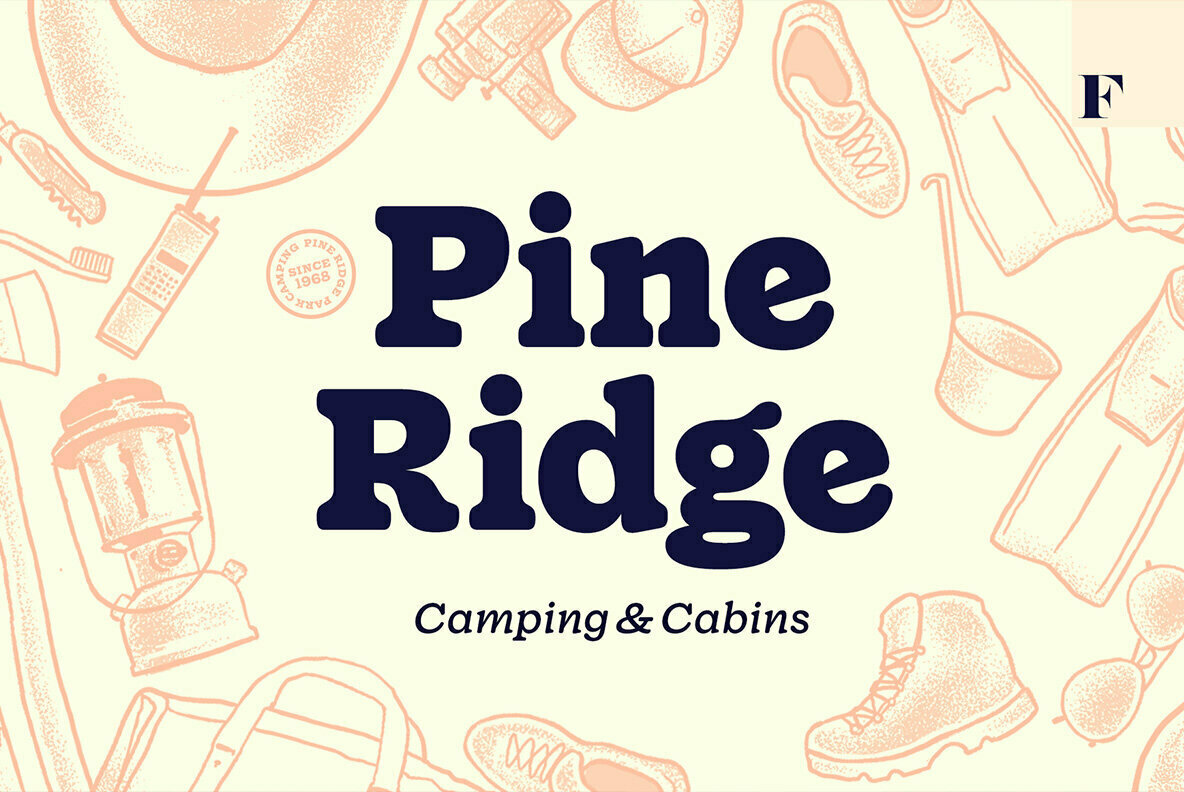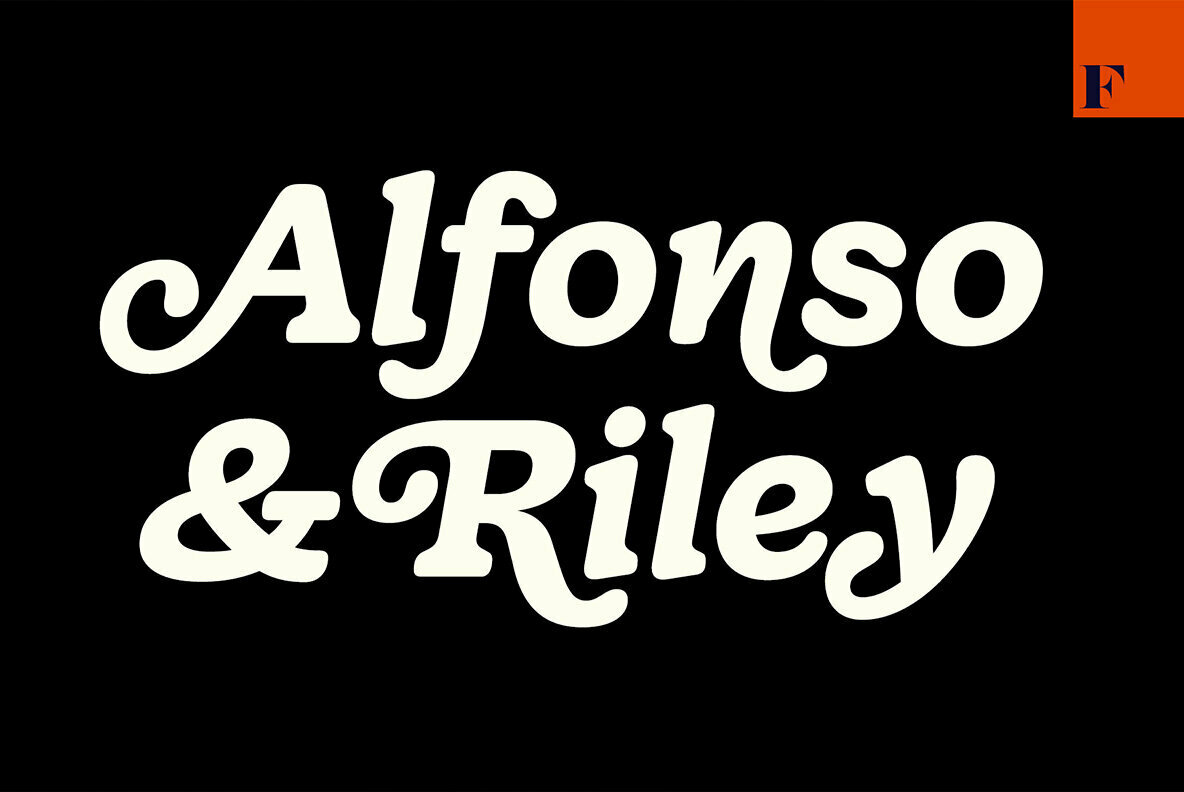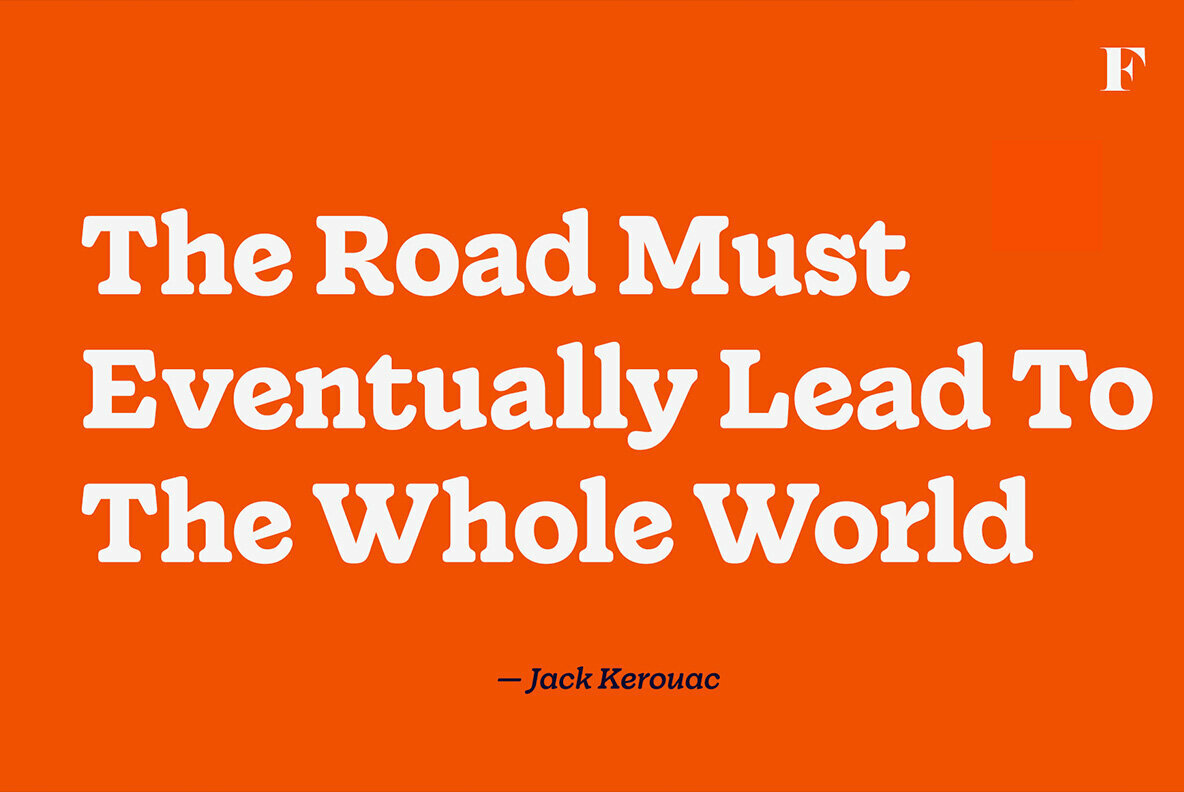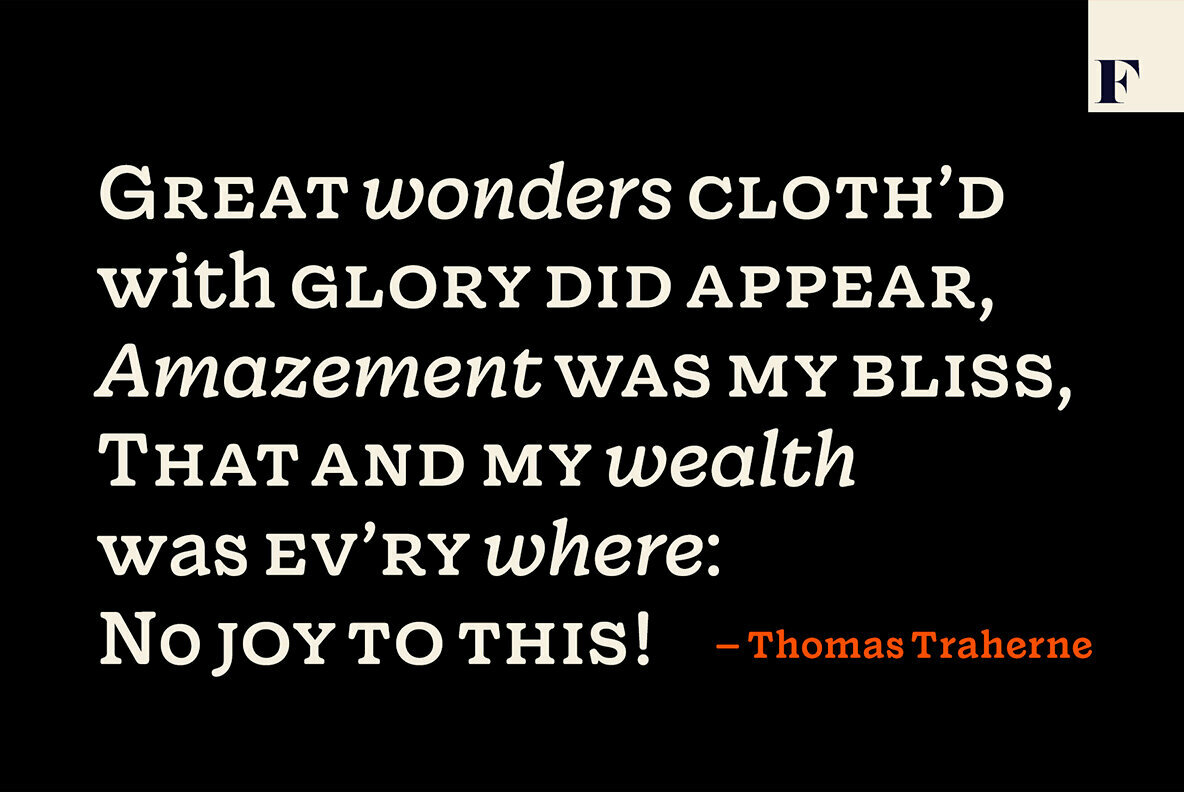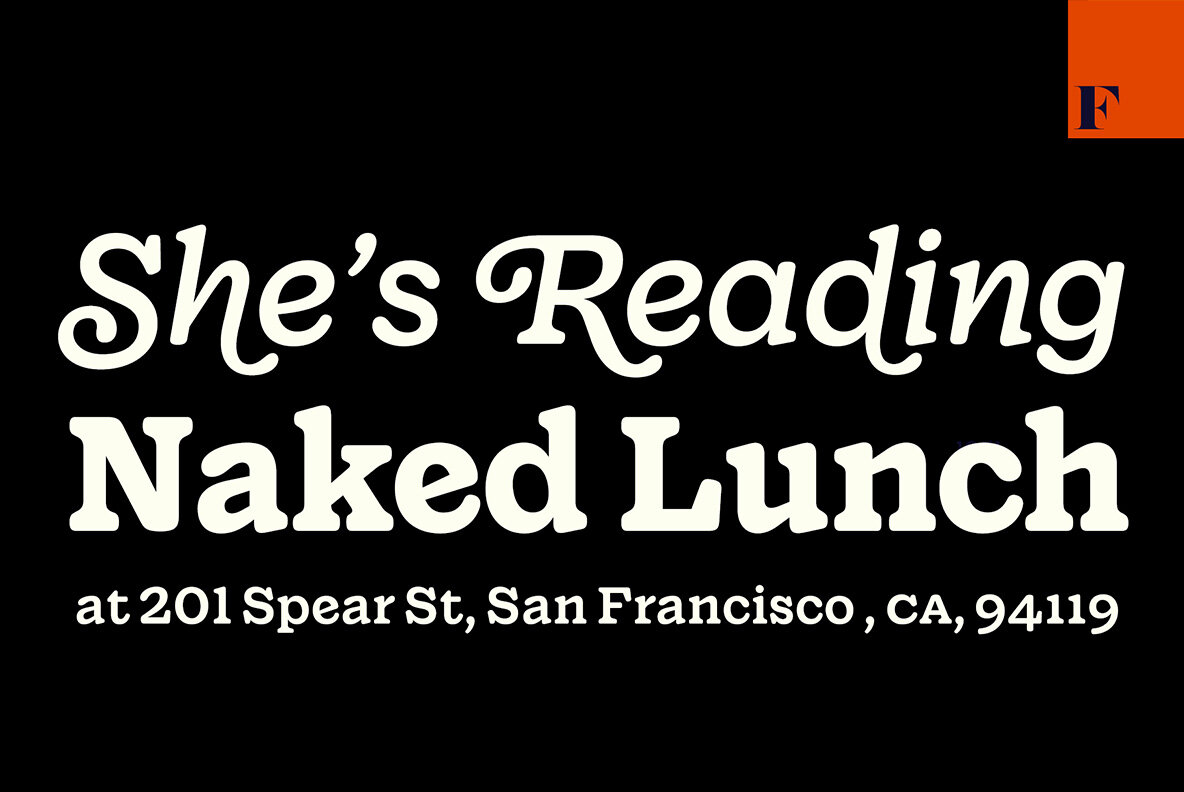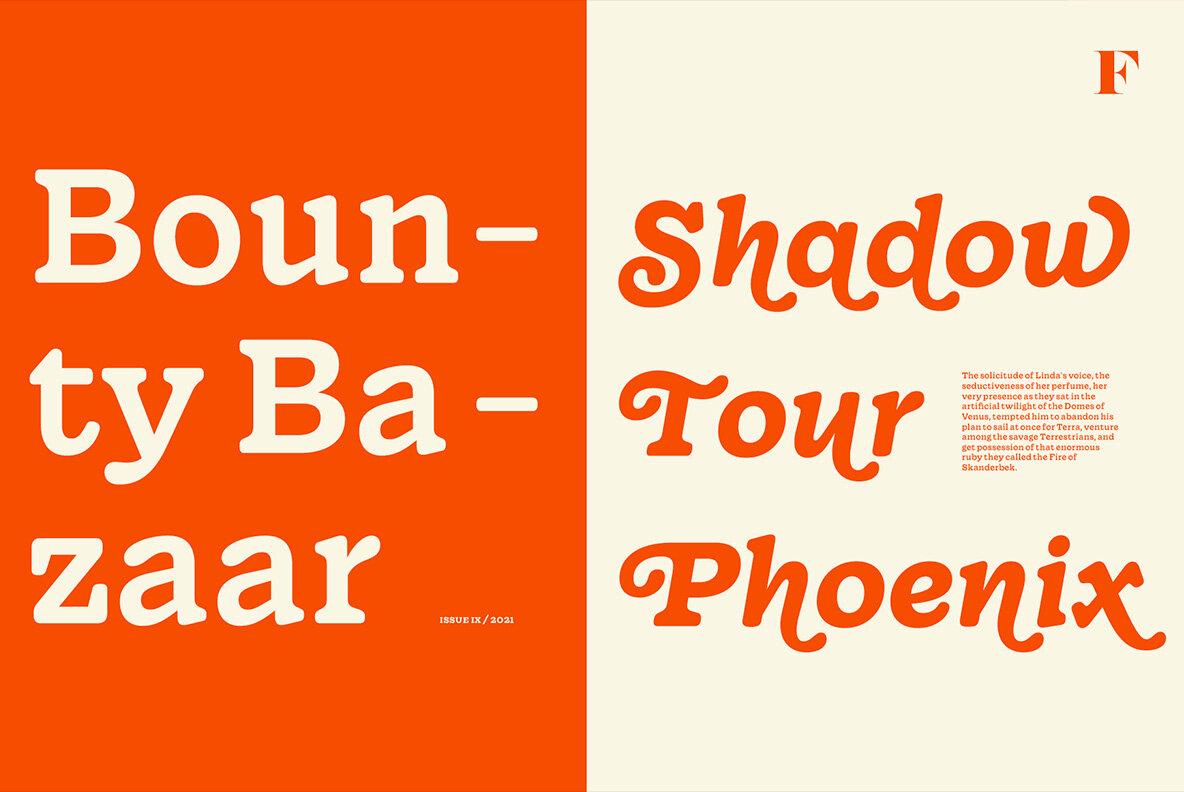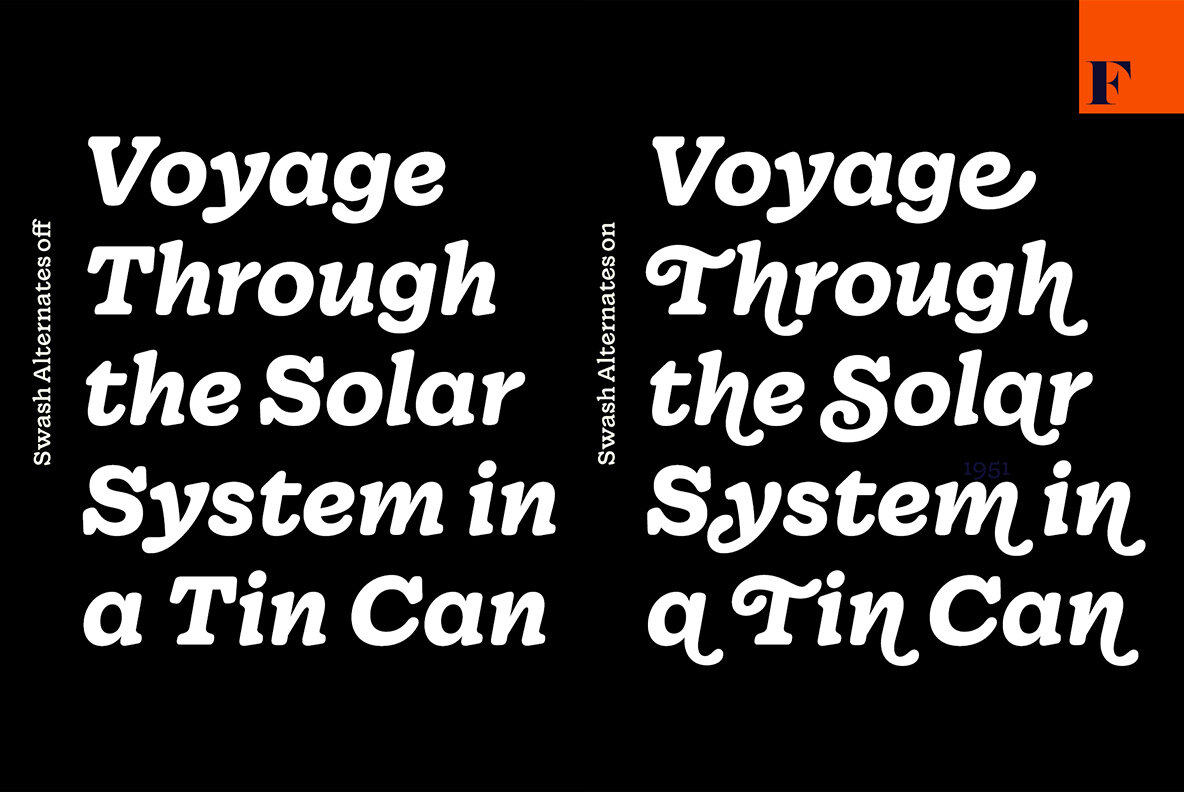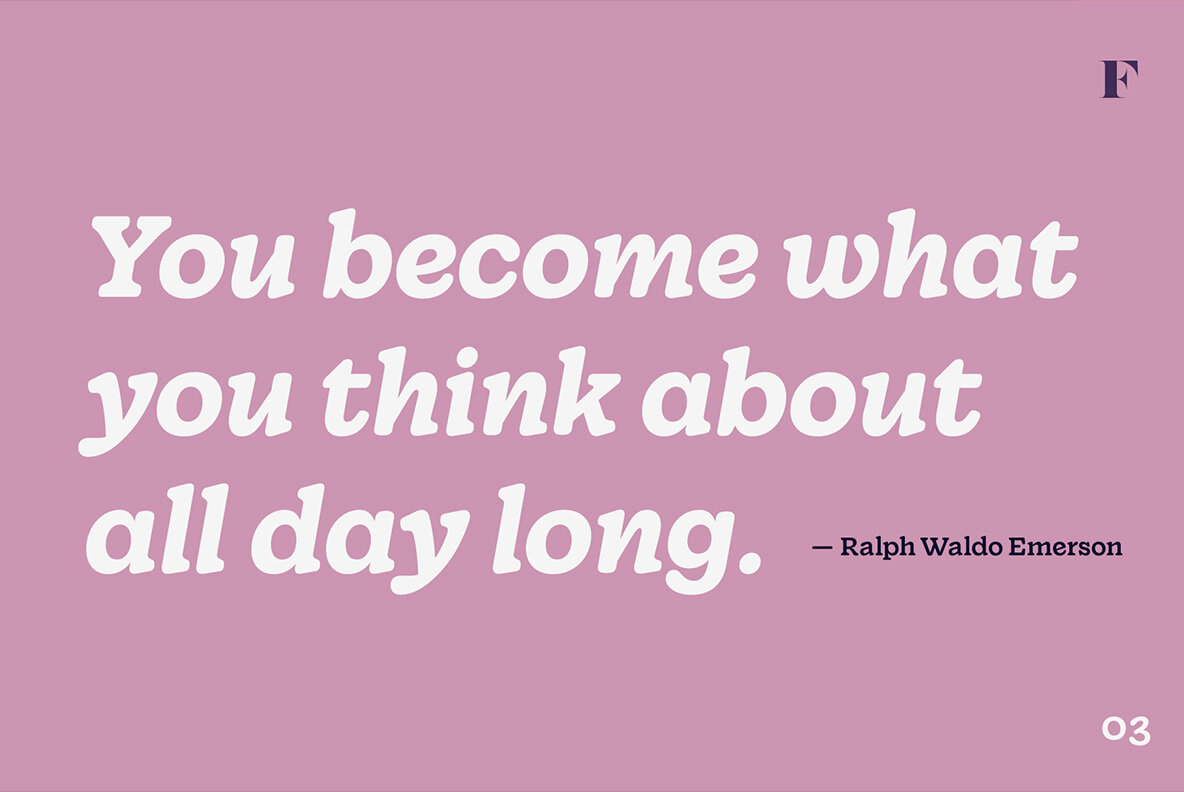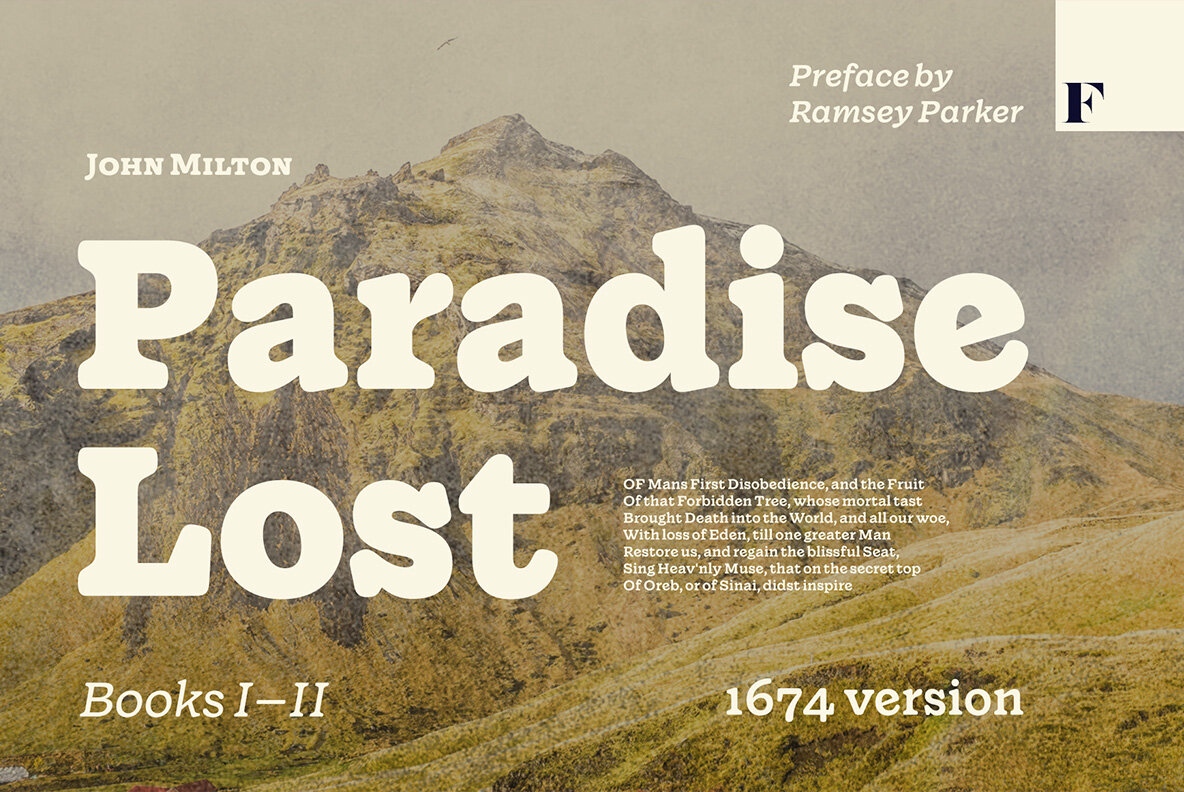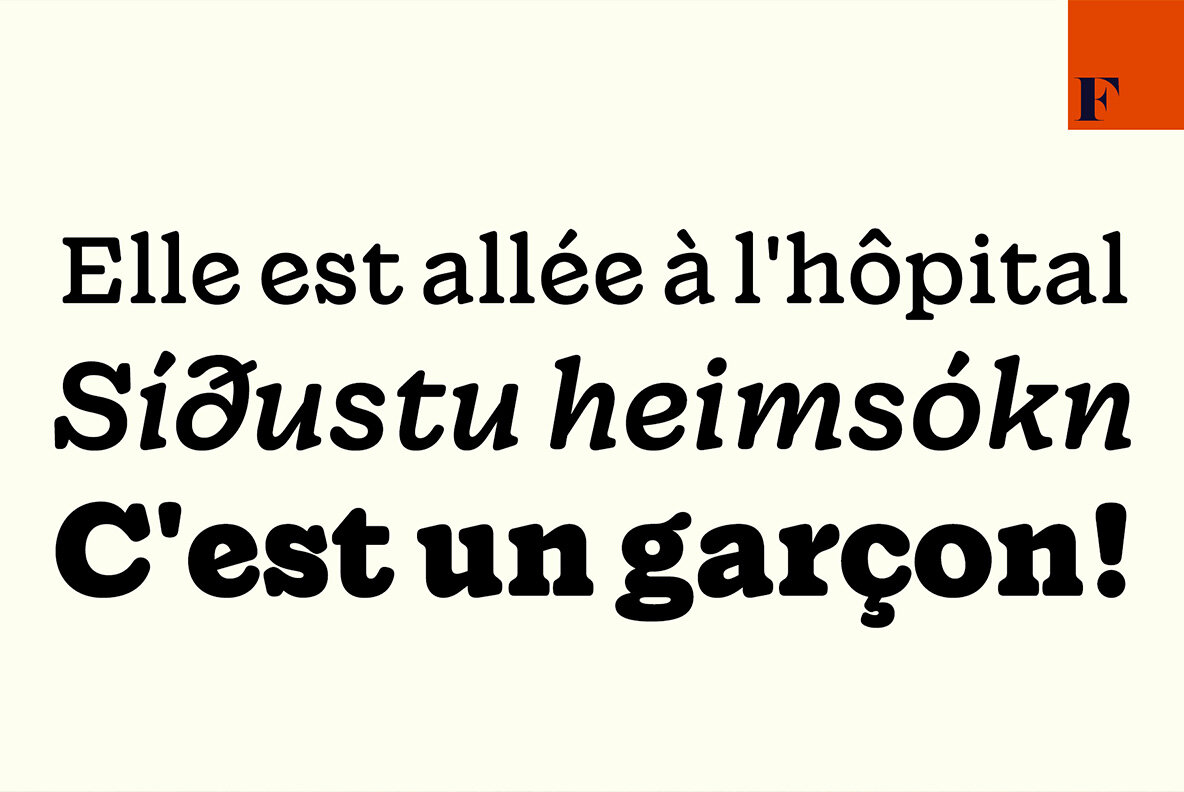
Wonder Font
Do you sometimes have an appetite for a bit more wholesome typography? Do you find the ubiquitous sans serifs too industrial and bland in taste? Opt for something more organic: Wonder – a rootsy yet contemporary type family. With a deliciously juicy approach to serifs and a chunky texture, Wonder is a real treat among typefaces. Despite its rustic flair, Wonder is perfectly adaptable for contemporary contexts from branding to packaging, mobile apps and beyond.
Savvy features such as multiple numeral styles (old style figures, tabular figures, subscript and superscript numerals), small capitals and swashes are included in all Wonder fonts.